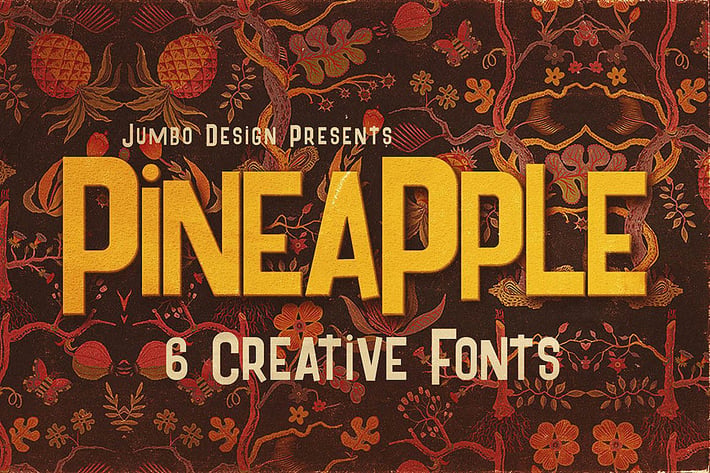
Pineapple - Funny Style Font
Unique and funny style custom font with 6 styles: regular and grunge, bold inline and bold inline grunge, bold and bold grunge.